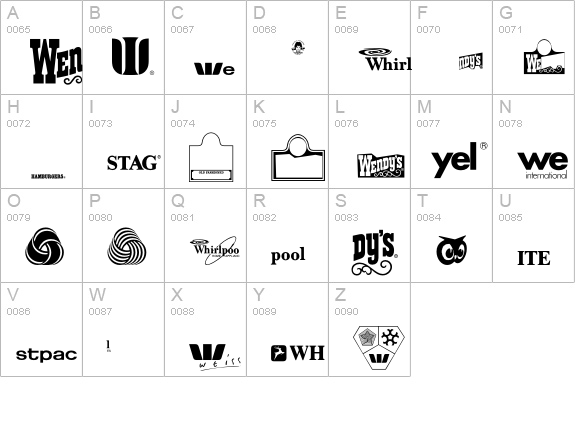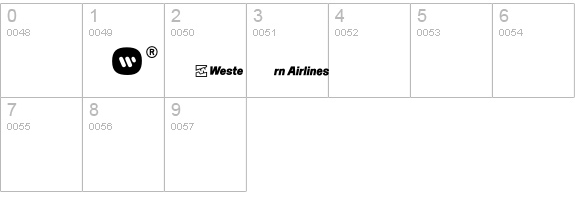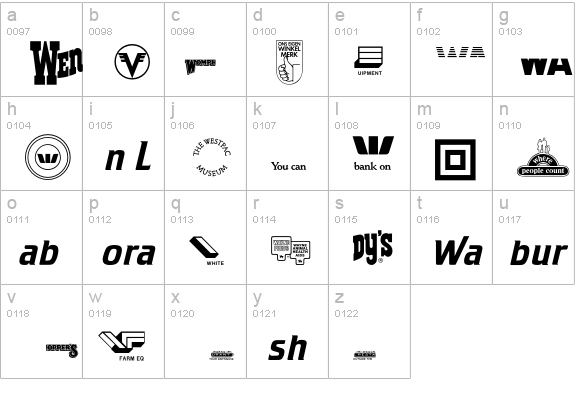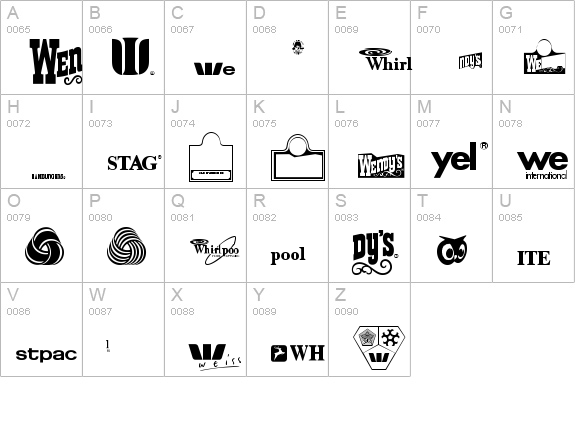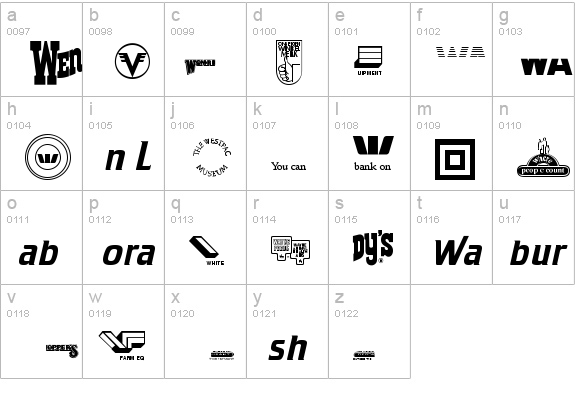
LogosCompanyP20 font is a versatile and modern typeface that exudes sophistication and elegance. Its sleek and stylish design makes it perfect for a wide range of projects, from branding to editorial design. With its clean lines and sharp edges, LogosCompanyP20 font adds a touch of professionalism to any design. What makes LogosCompanyP20 font even more appealing is that it is completely free to use. Whether you are a seasoned designer or just starting out, you can download this font for free at FontsMarket.com and start using it in your projects right away. Take advantage of this amazing opportunity to enhance your designs with the beauty and versatility of LogosCompanyP20 font.